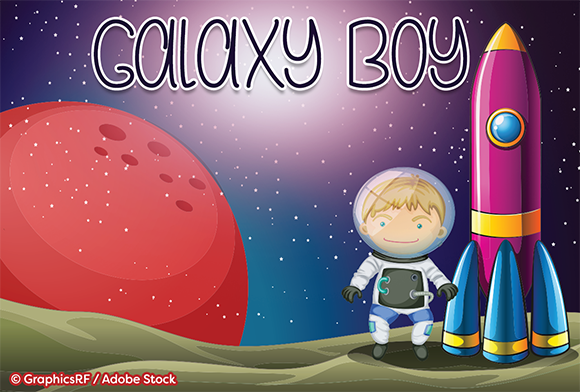
HomeScript FontsGalaxy Boy Font Script Fonts Galaxy Boy Font FacebookXPinterestWhatsApp About Galaxy Boy Font Galaxy Boy is a fun uni-case font that is out of this world and is perfect for your design and craft projects! DOWNLOAD ON CREATIVE FABRICAThis font is sold and delivered by Creative Fabrica. Font Canyon may earn a commission if you buy through this link. People also explored Asmara Basstian Ritta Font Williams Font My Love Font Sunday Funday Font The Signature Font Fondness Font Belalatia Font Pebble Brown Bella Canvas 3001 Mockup Maulidah Script Font 287 0 TagsGalaxy Boy Font Previous articleMarshanda FontNext articleZape Italic Family Font LEAVE A REPLY Cancel reply Comment: Please enter your comment! Name:* Please enter your name here Email:* You have entered an incorrect email address! Please enter your email address here Website: Save my name, email, and website in this browser for the next time I comment. Personal Use Free Round Geometric Personal Use Free Read more about this font Messy Personal Use Free Read more about this font Jabirah Personal Use Free Read more about this font Tide Personal Use Free Read more about this font BLOG Free vs Paid Fonts: Why Investing in Premium Fonts Is Worth It Free vs Paid Fonts: Why Premium Fonts Are Worth It in 2025 The debate of free vs paid fonts continues in the design world. While... Elegant Wedding Invitation Fonts – Handwritten & Script Fonts Best Fonts for YouTube Videos: Make Your Thumbnails Stand Out To increase your work productivity, choose the most readable fonts.